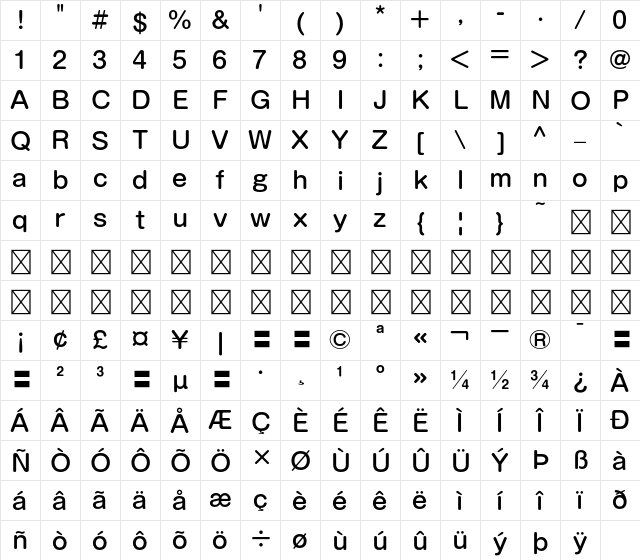
A-OTF KamoLemon Std M
Style: M
Designer: Minoru Kamono
Complete A-OTF KamoLemon Std M glyph index. Displaying only characters natively supported by A-OTF KamoLemon Std M font.
Design Context for A-OTF KamoLemon Std
A-OTF KamoLemon Std is a composed and adaptable typeface that performs quietly and consistently across a wide range of design contexts.
Pro Tip: Use A-OTF KamoLemon Std in both headline and body roles to test its range before committing to a single application.